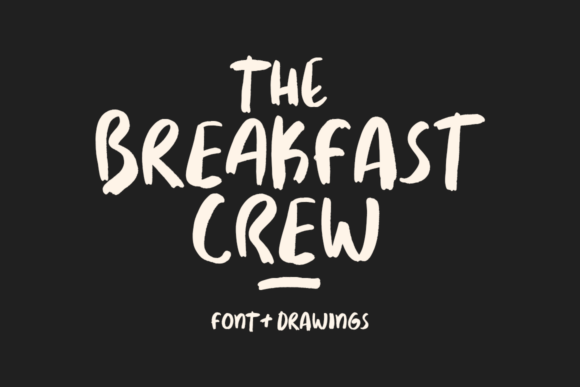
Introducing the Breakfast Crew Font: A Deliciously Casual Addition to Your Brand
Are you tired of using the same old fonts for your food packaging, café branding, or lifestyle blog? Look no further than the Breakfast Crew font, a hand-drawn typeface that captures the warm, relaxed vibe of a lazy morning. With its natural flow and slightly uneven edges, this font is perfect for adding a touch of personal charm to your designs.
The Story Behind the Breakfast Crew Font
The Breakfast Crew font is more than just a collection of letters – it’s a reflection of the joy and simplicity of a morning spent with loved ones. Imagine a chalkboard menu scrawled with love, a handwritten note from a friend, or a casual breakfast invitation. This font embodies the warmth and personality of these everyday moments, making it an ideal choice for brands that want to connect with their audience on a more personal level.
What Makes the Breakfast Crew Font So Special?
- Hand-drawn with love: Each letter has been carefully crafted to capture the imperfections and quirks of handwriting, giving your designs a unique, human touch.
- Natural flow: The font’s irregular edges and varying letter spacing create a sense of movement and energy, perfect for conveying the excitement of a new day.
- Perfect for food packaging: Whether you’re designing labels for artisanal foods, craft beverages, or baked goods, the Breakfast Crew font adds a touch of warmth and approachability.
- Café branding made easy: Create a cozy atmosphere for your coffee shop, bakery, or restaurant with a font that feels like a warm hug.
- Lifestyle blogs and beyond: Add a dash of personality to your blog, social media, or marketing materials with a font that’s as friendly as a morning smile.
But That’s Not All: Bonus Doodles to Enhance Your Designs
The Breakfast Crew font doesn’t just stop at letters – it also comes with a set of bonus doodles to help you tell your brand’s story. These playful illustrations can be used to add visual interest, create engaging graphics, or simply to give your designs a bit more personality.
Some ideas for using the bonus doodles:
- Illustrate your food products with cute icons, like donuts, coffee cups, or pastries.
- Create a custom social media graphic with a doodle that ties in with your brand’s message.
- Use the doodles to add a playful touch to your packaging, like a fun pattern or a decorative border.
Why Choose the Breakfast Crew Font?
In a world where fonts can feel generic and impersonal, the Breakfast Crew font stands out for its unique character and warmth. Here are just a few reasons why you might choose this font for your next project:
- Instant recognition: The Breakfast Crew font has a distinctive look that will help your brand stand out from the crowd.
- Emotional connection: By using a font that feels friendly and approachable, you can create an emotional connection with your audience.
- Flexibility: The font’s casual, hand-drawn feel makes it suitable for a wide range of applications, from food packaging to lifestyle blogs.
The Breakfast Crew font is more than just a typeface – it’s a way to add a touch of warmth, personality, and charm to your designs. Whether you’re a food brand, a café owner, or a lifestyle blogger, this hand-drawn font is the perfect choice for anyone looking to connect with their audience on a more personal level. So why wait? Download the Breakfast Crew font today and start creating designs that feel like a warm hug.